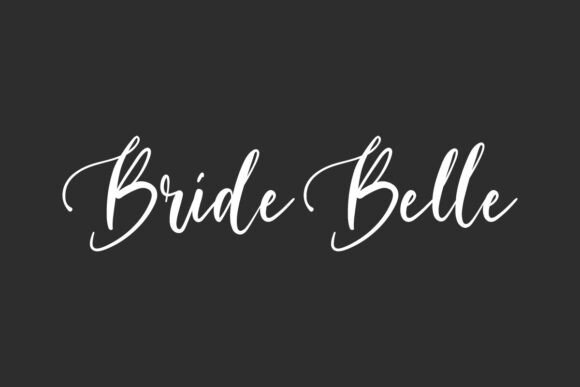
Bride Belle Font: The Elegant Choice for Your Design Needs
The world of typography is vast and diverse, offering a multitude of font styles to suit every design requirement. Among these, script fonts hold a special place for their elegance and sophistication. One such font that has captured the hearts of designers and brides-to-be alike is the Bride Belle Font. This beautiful calligraphic script font is renowned for its long back tails and formal style, making it an ideal choice for various design projects.
What is Bride Belle Font?
Bride Belle is a stunning calligraphic script font characterized by its long back tails and a formal appearance. Its unique wave lines are reminiscent of a bride’s gown, flowing elegantly and capturing the essence of beauty and sophistication. This font is not just a typographic choice; it’s an experience that brings a touch of class and refinement to any design.
Key Features of Bride Belle Font
- Calligraphic Script Style: Bride Belle boasts a beautiful, flowing script style that adds an elegant touch to any text.
- Long Back Tails: The font features long back tails that enhance its formal and sophisticated look.
- Wave Lines: The wave-like lines in the font are evocative of a bride’s gown, adding a unique and thematic element to designs.
- Versatility: Bride Belle is suitable for a wide range of design projects, from formal invitations to product packaging.
Uses of Bride Belle Font
The versatility of Bride Belle Font makes it an excellent choice for numerous design applications. Here are some of the areas where this font truly shines:
Design Projects Where Bride Belle Excels
- Brochures: Add a touch of elegance to your brochures, making them stand out with the beautiful script of Bride Belle.
- Covers: Whether it’s a book cover, magazine cover, or any other type of cover, Bride Belle lends a sophisticated and eye-catching appeal.
- Custom Designs: For bespoke designs that require a unique touch, Bride Belle’s distinctive style is unparalleled.
- Gift Boxes: Elevate your gift box designs with the luxurious feel of Bride Belle, perfect for high-end products or special occasions.
- Invitations: Wedding invitations, birthday invites, or any formal event invitation will look stunning with Bride Belle.
- Labels: Product labels or any kind of label design benefit from the elegant and clear presentation that Bride Belle offers.
- Posters: Create visually appealing posters for events, promotions, or informational purposes with the striking appearance of Bride Belle.
- Product Packaging: Enhance your product packaging with a sophisticated look that appeals to customers and sets your product apart.
- Quotes: Design inspirational or promotional quotes with a beautiful and easy-to-read font.
- Screen Printing: For t-shirts, tote bags, or any fabric that can be screen printed, Bride Belle provides a stylish and legible option.
- Stationery: Business cards, letterheads, or personal stationery will all benefit from the professional and elegant look of Bride Belle.
- Websites: Even on digital platforms, Bride Belle can be used in website headers, banners, or as a decorative element to enhance user experience.
Why Choose Bride Belle Font?
Choosing a font for your design project can be overwhelming given the numerous options available. However, Bride Belle stands out for several reasons:
What Makes Bride Belle an Ideal Choice?
- Elegance: Its calligraphic and script style brings an unmatched elegance to any design.
- Versatility: Suitable for a wide array of design projects, making it a valuable addition to any designer’s toolkit.
- Uniqueness: The wave lines and long back tails offer a distinctive look that can make your designs stand out.
- Readability: Despite its elegant and flowing style, Bride Belle maintains a high level of readability, making it practical for various uses.
How to Use Bride Belle Font Effectively
To make the most out of Bride Belle Font, consider the following tips:
Tips for Effective Use of Bride Belle
- Pair with Simple Fonts: For body text, pair Bride Belle with simpler, easy-to-read fonts to create contrast and enhance readability.
- Use for Headers and Titles: Take advantage of Bride Belle’s elegance by using it for headers, titles, and any text you want to stand out.
- Adjust Size and Color Wisely: Play with the size and color of the text to ensure it complements your design and does not overwhelm it.
- Consider the Theme: Ensure that the use of Bride Belle aligns with the overall theme and tone of your design project.
Bride Belle Font is a beautiful and versatile calligraphic script font that can elevate your design projects with its elegant and sophisticated style. Whether you’re designing wedding invitations, product packaging, or any other material, Bride Belle offers a unique combination of beauty, readability, and versatility. By incorporating this stunning font into your designs, you can create visually appealing and memorable content that stands out in any context.